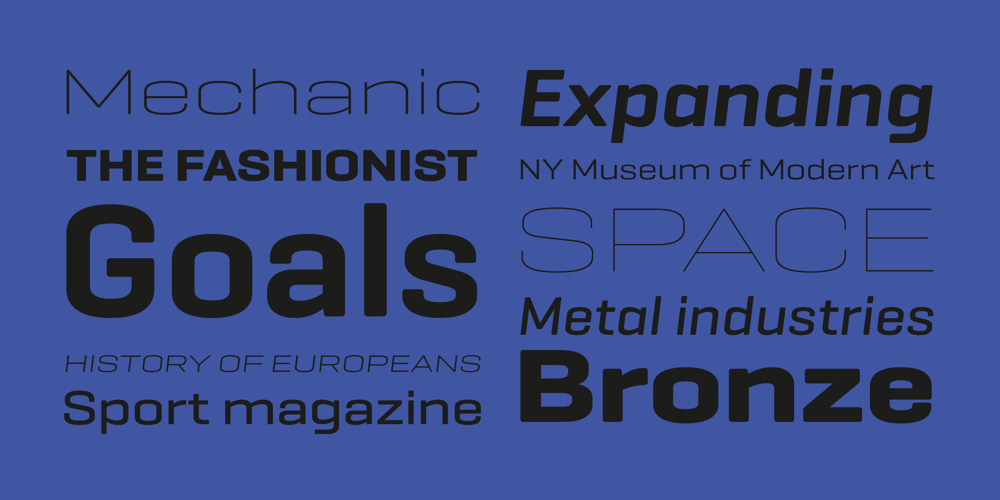
Geogrotesque Expanded Series
Geogrotesque Expanded Series font
Geogrotesque Expanded Series Font Family was designed by Eduardo Manso and published by Emtype Foundry. Geogrotesque Expanded Series contains 42 styles and family package options. Geogrotesque Expanded Series comes in three widths: Wide, Extended and Expanded, that go between 120% and 200% of the normal width. Since the original Geogrotesque is slightly condensed, the Wide family becomes a good option for texts. Whereas the Extended and Expanded are ideal for display sizes. With the inclusion of the Expanded Series and the preceding Condensed ones, the Geogrotesque super family is now a complete widths system. For more details see the PDF.